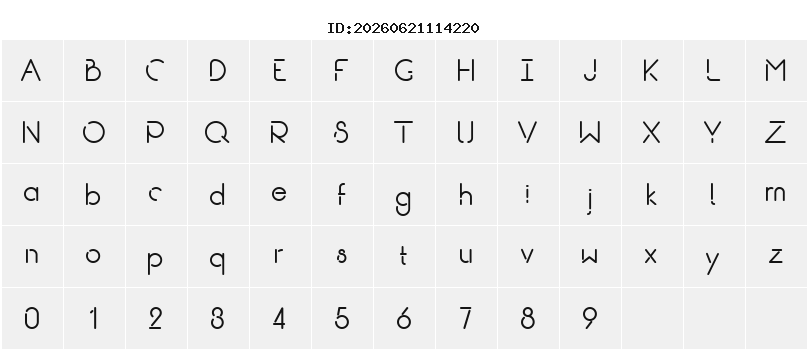
• Font Name: Break
• Designer: Rajesh Rajput
About Break.ttf
Break.ttf is a modern, elegant sans-serif font designed for ultimate readability and visual harmony. Perfect for branding, headlines, web design, and print materials.